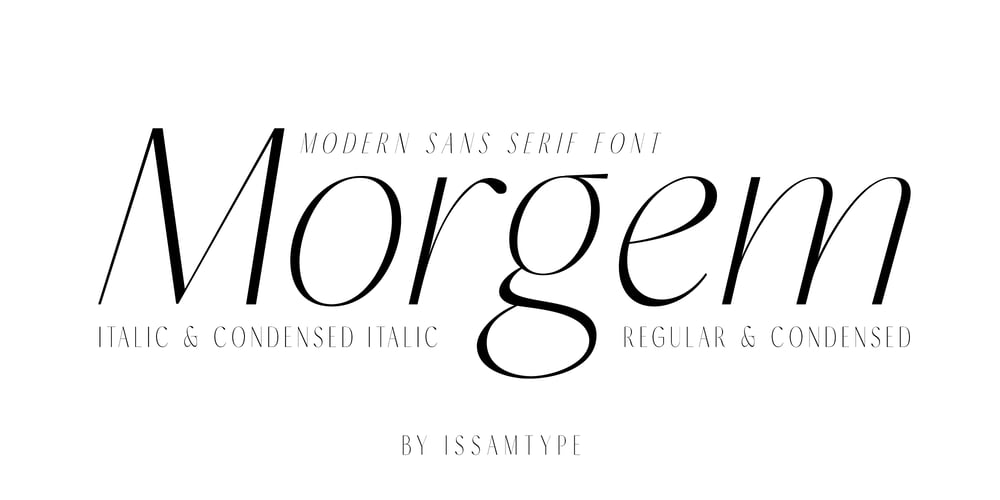
Morgem
Morgem font
Morgem Font Family was designed by Issam Boufelja and published by Issam Type. Morgem contains 4 styles and family package options. Morgem is a beautiful Modern sans-serif font that is perfect for wedding invitations, branding, logos, product packaging and so much more. With its clean lines and distinctive design, Morgem offers endless creative possibilities. OpenType Features Kerning Alternates Ligatures Stylistic Sets If you have any questions, please feel free to get in touch.Thank you